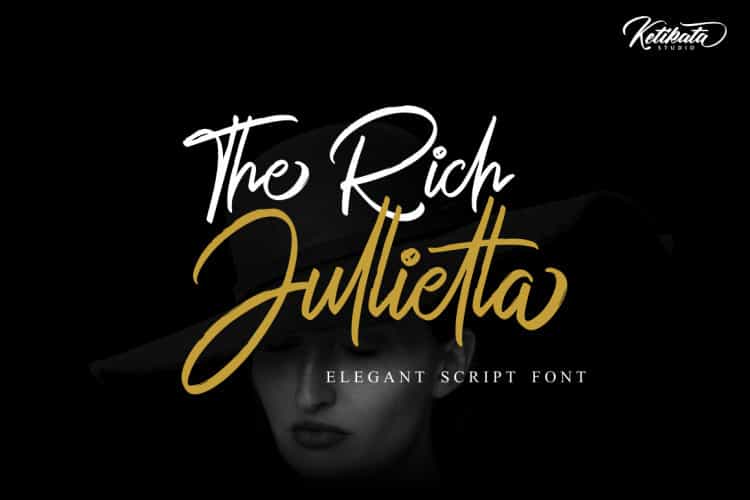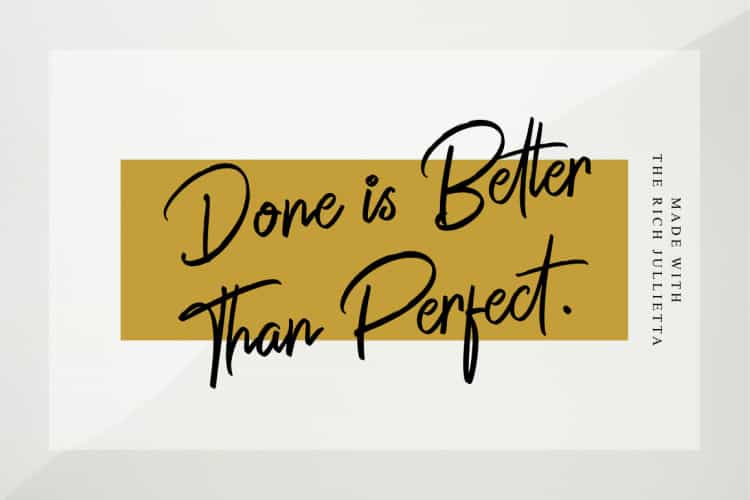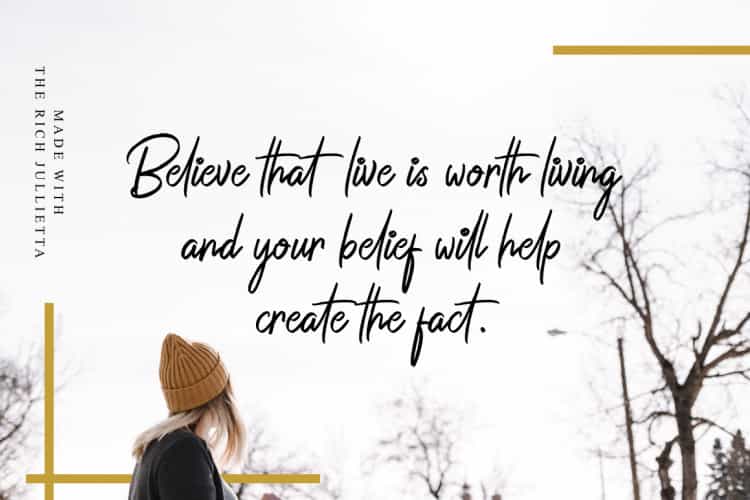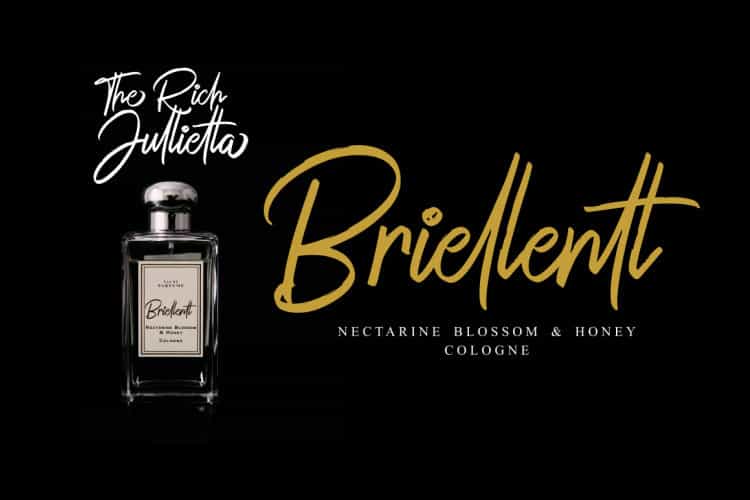
Discover The Rich Jullietta Script Font, part of the Brush Handwritten collection—a versatile and unique font perfect for adding a personal touch to your projects. Download it for free and enjoy crafting designs with style, from invitations to social media posts. This font is available exclusively for personal use, giving you the freedom to create without limits. Unlock your creativity with The Rich Jullietta Script Font today!
The Rich Jullietta Handwritten Font will attract your design project, The Rich Jullietta looks original and can be used for each of your projects with certain concepts. Can also be easily combined with other popular fonts. Including wedding invitations, social media posts, promotional materials, quotes, posters, flyers, packaging, or a logo with a personalized look and more.